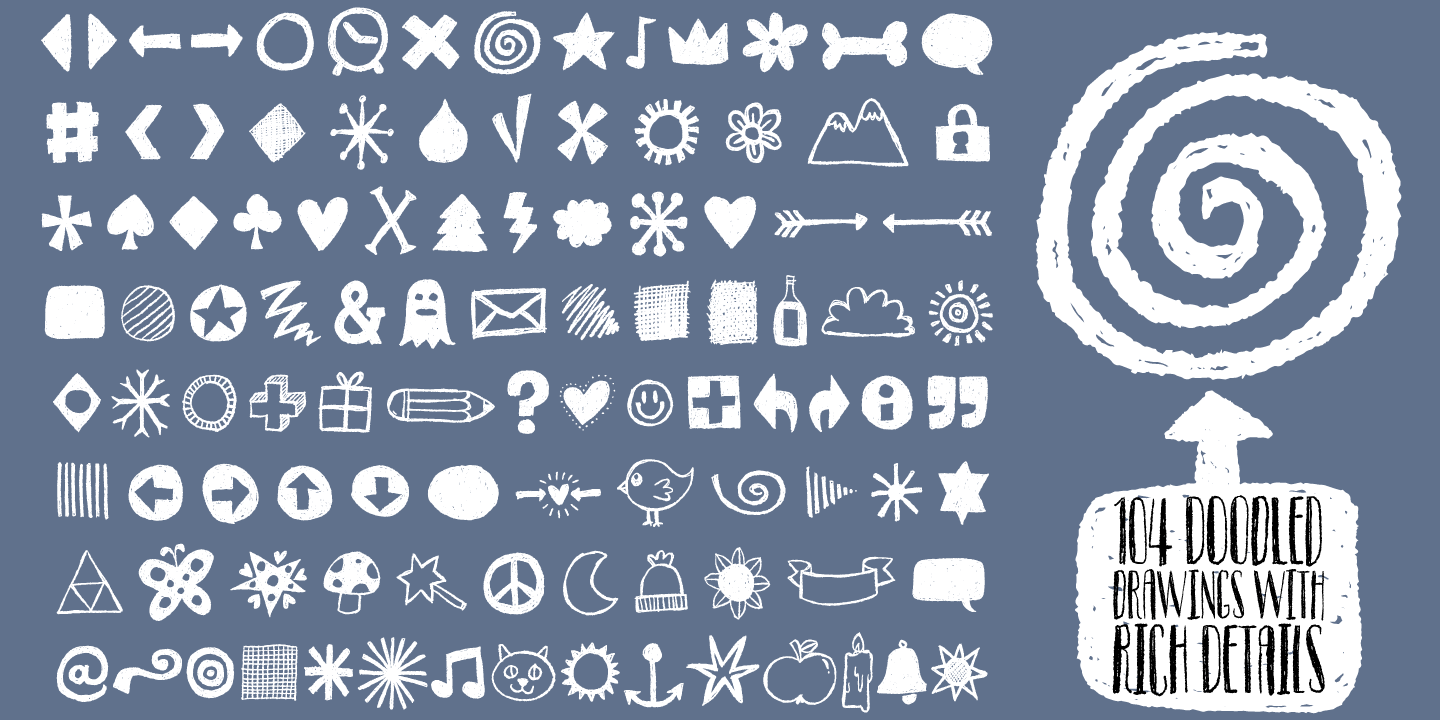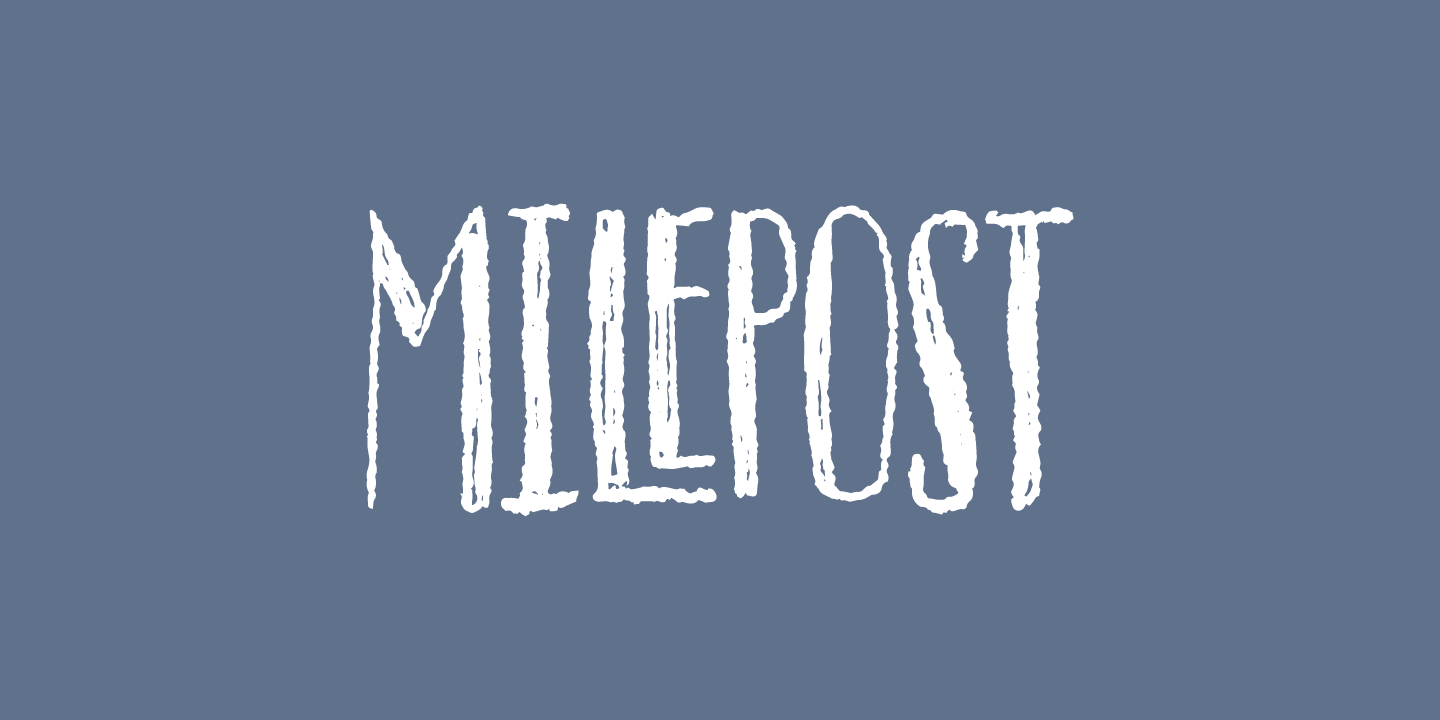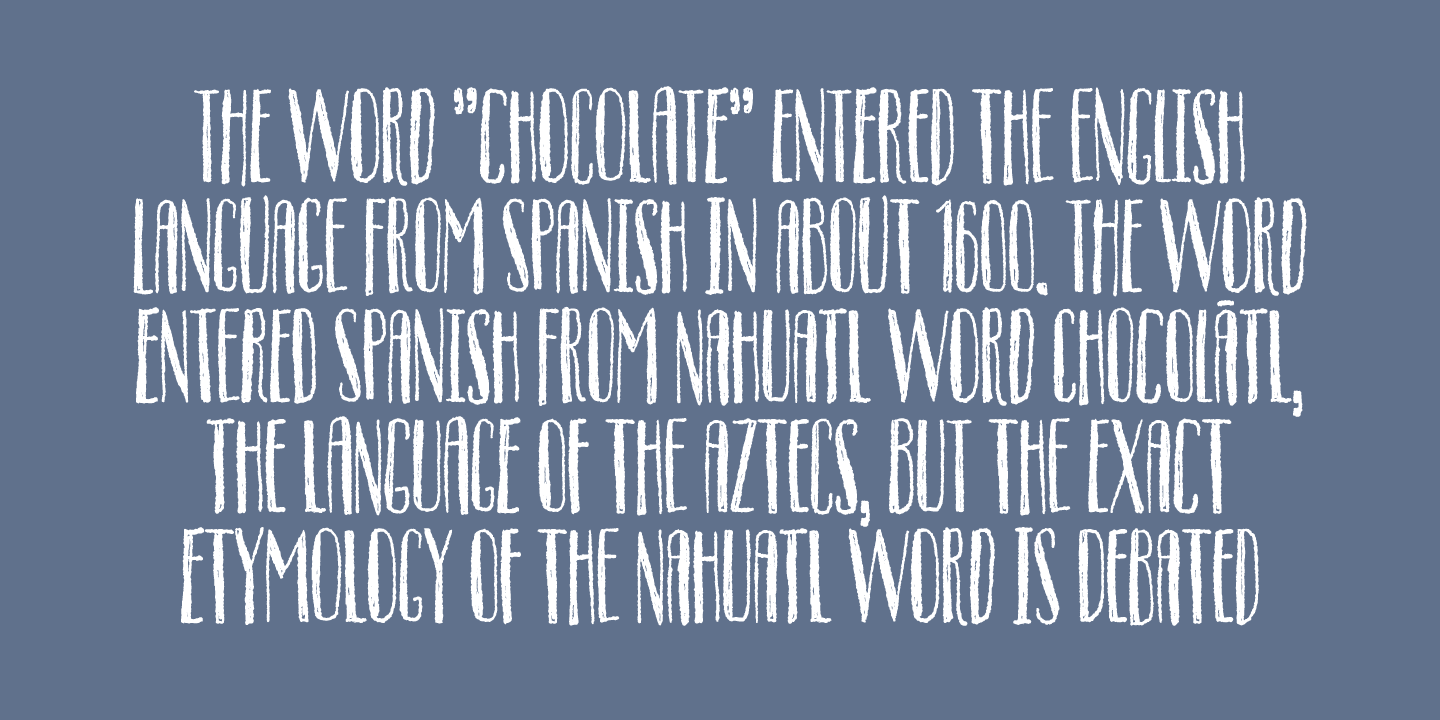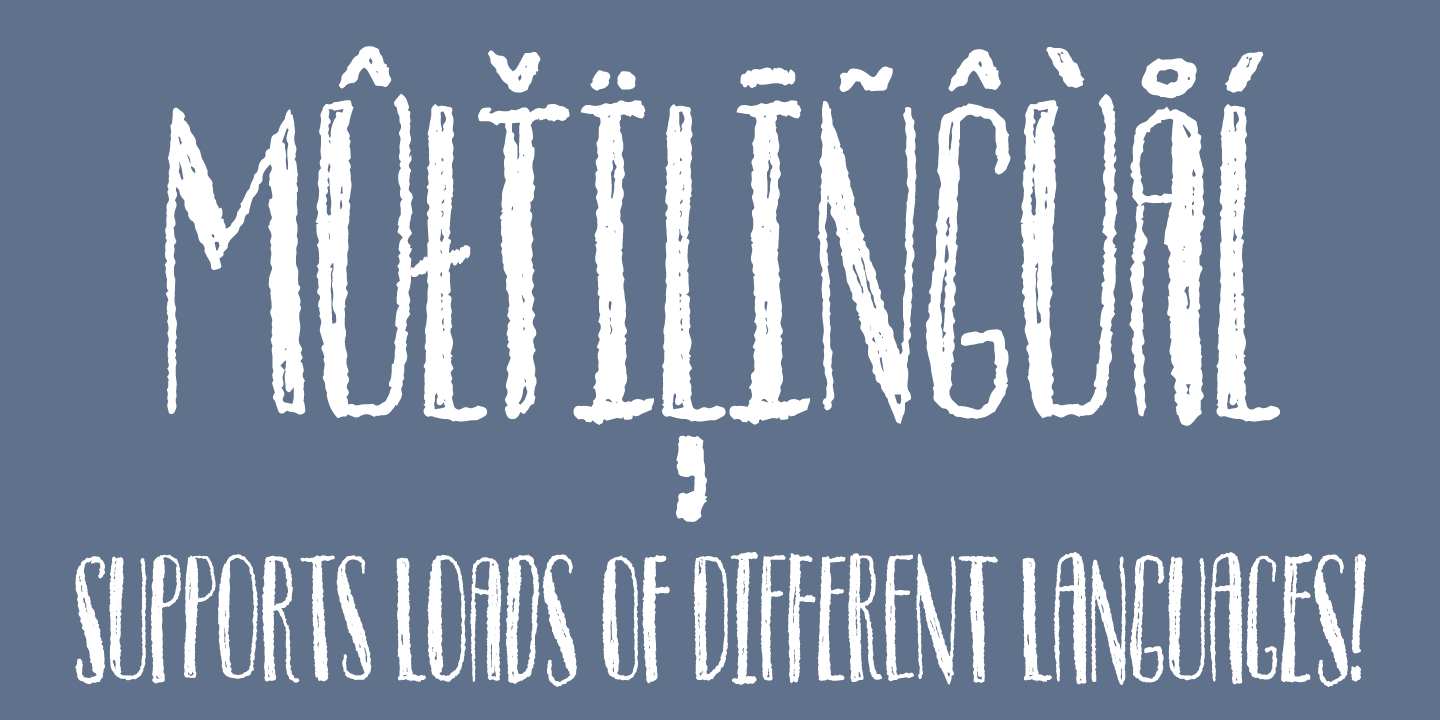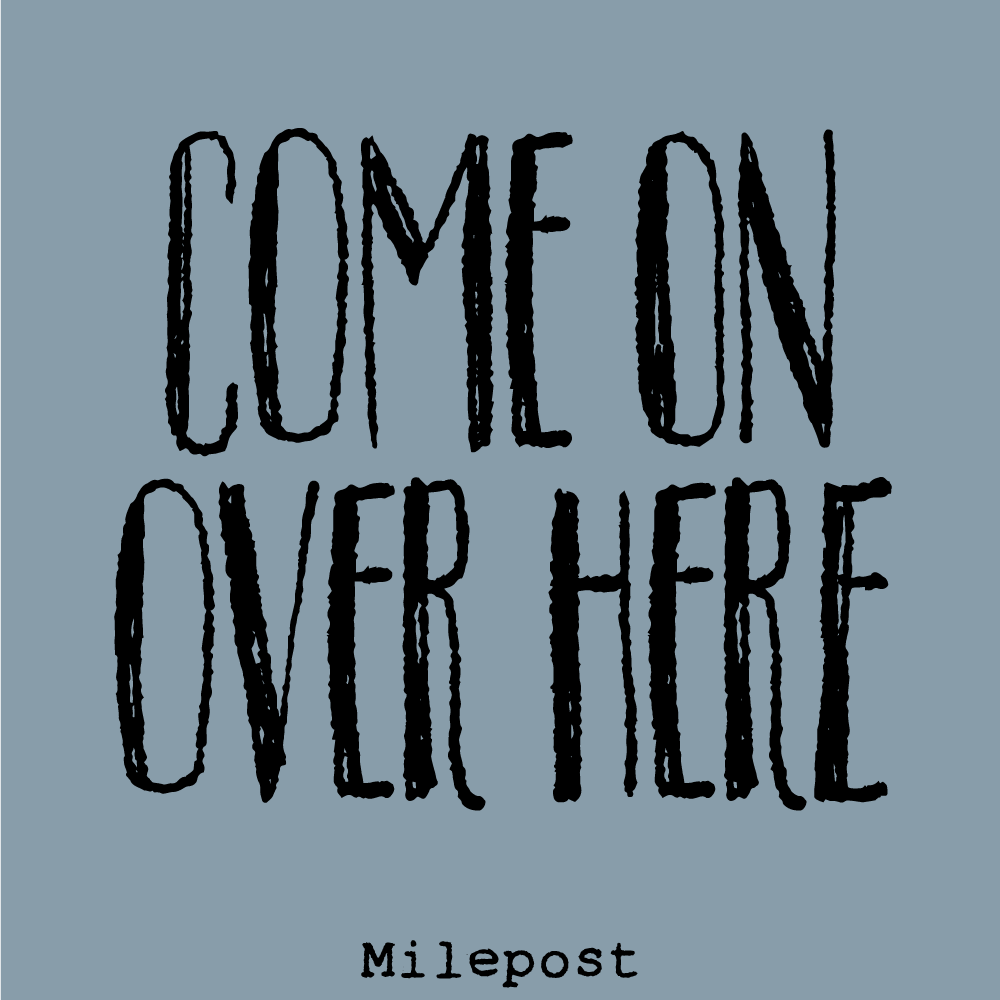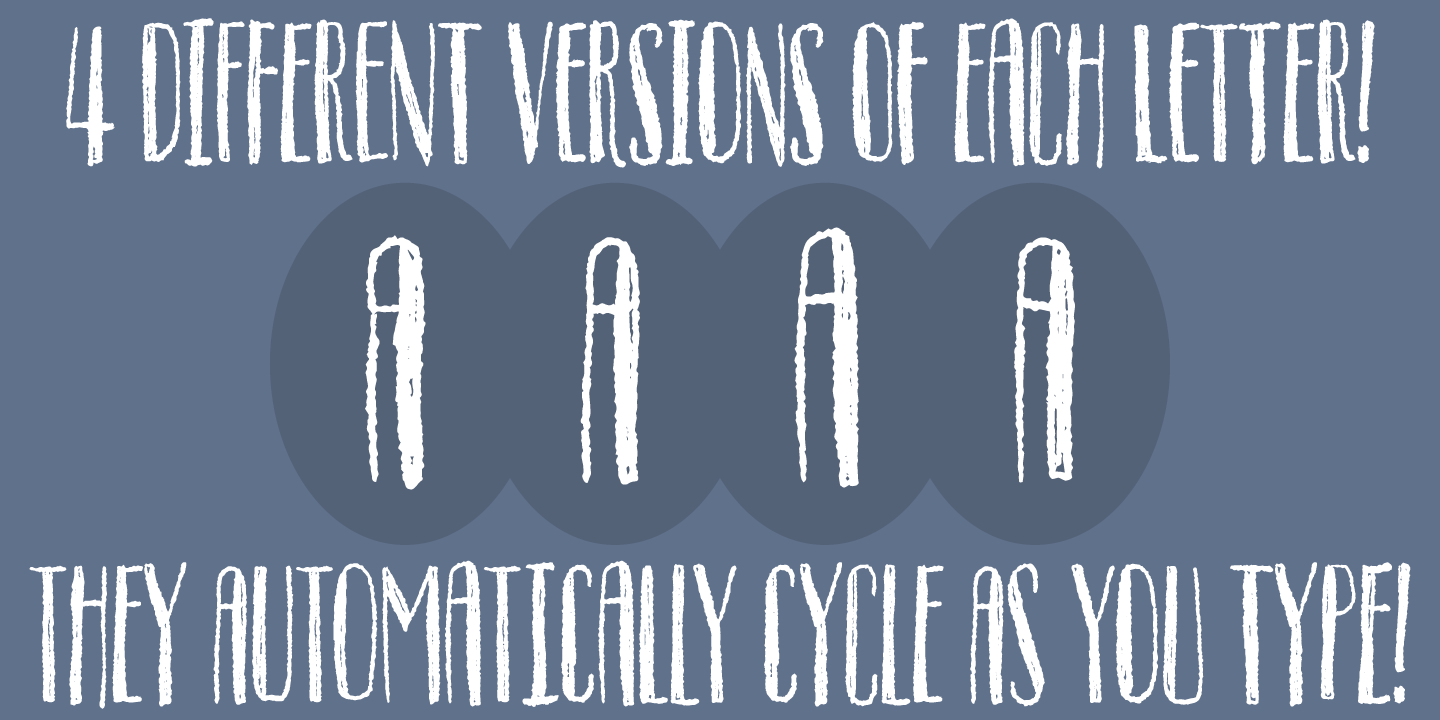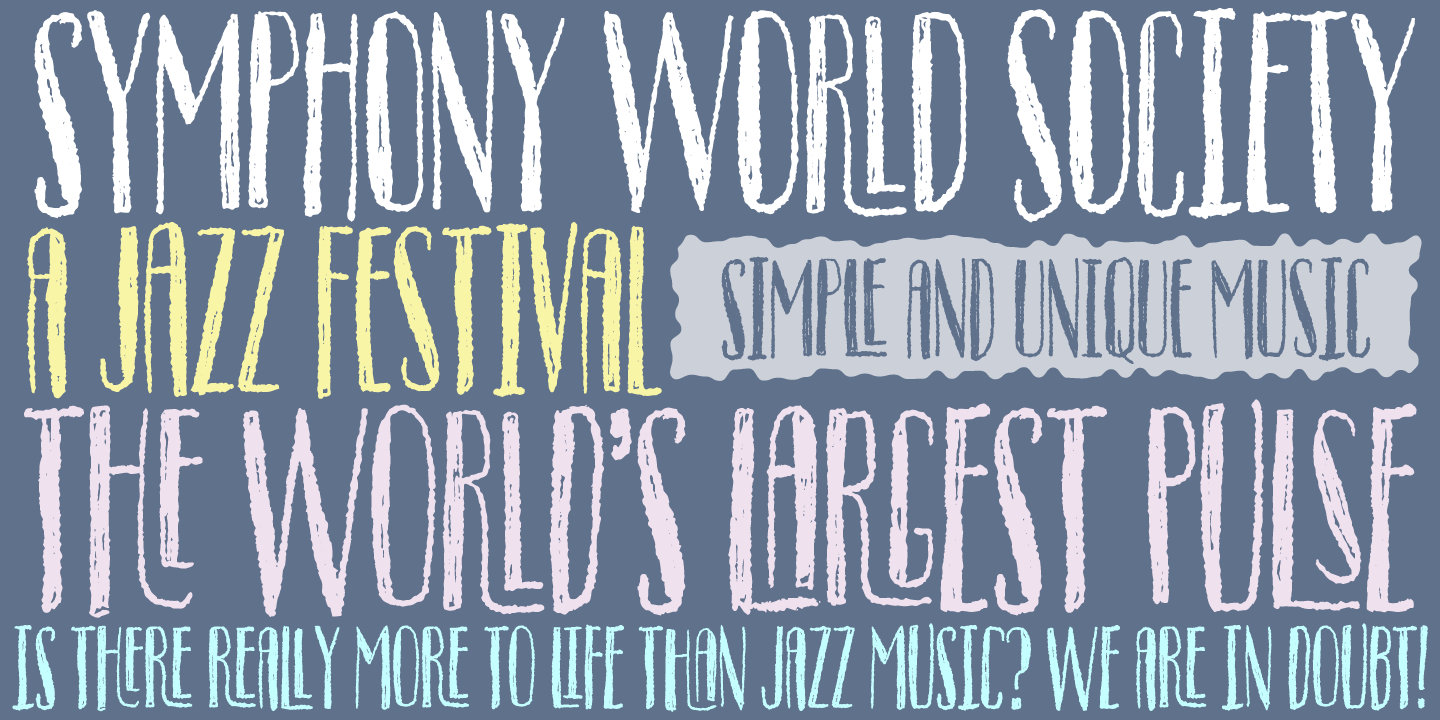
Milepost
If you use Milepost for your next graphical project, then turn the ligatures on and off, and watch the letters intertwine - or spice your text up, using the included dingbat (with more than 100 scribbled drawings!)
The font has multilingual support as well as contextual alternates!